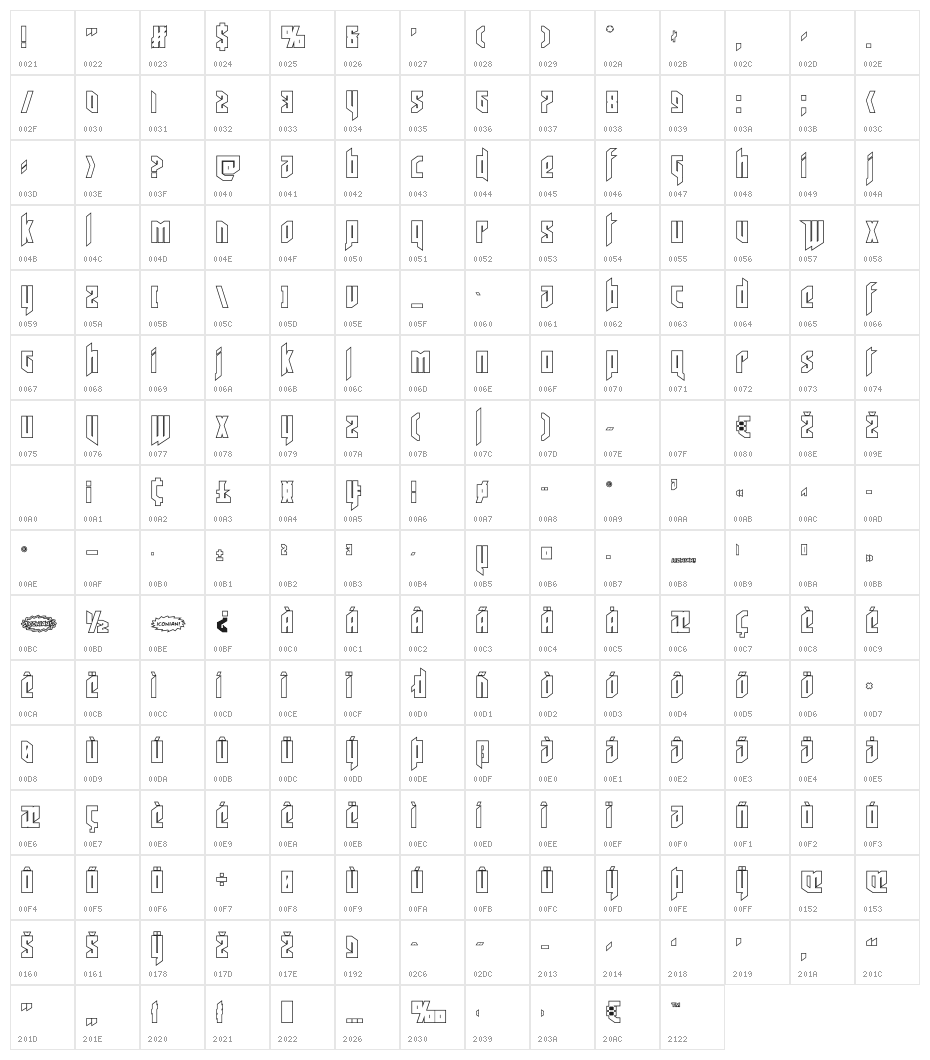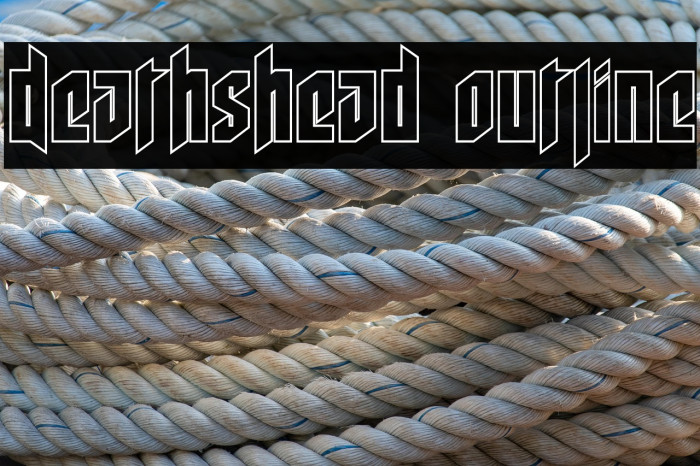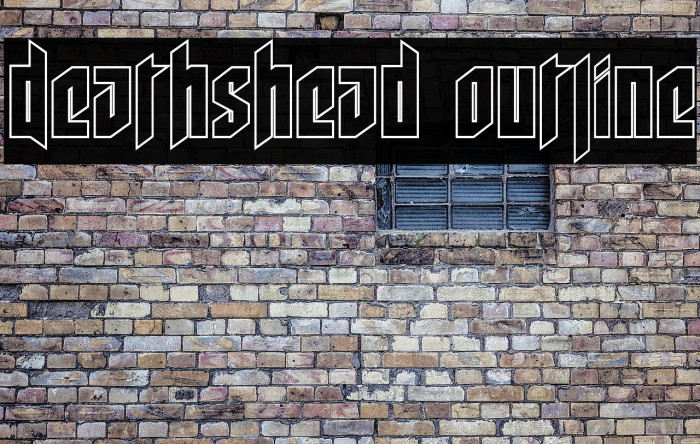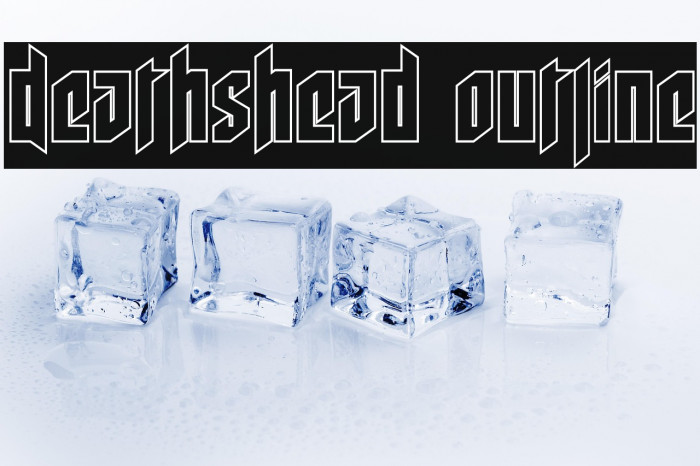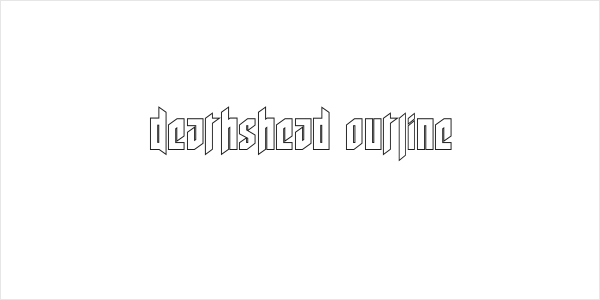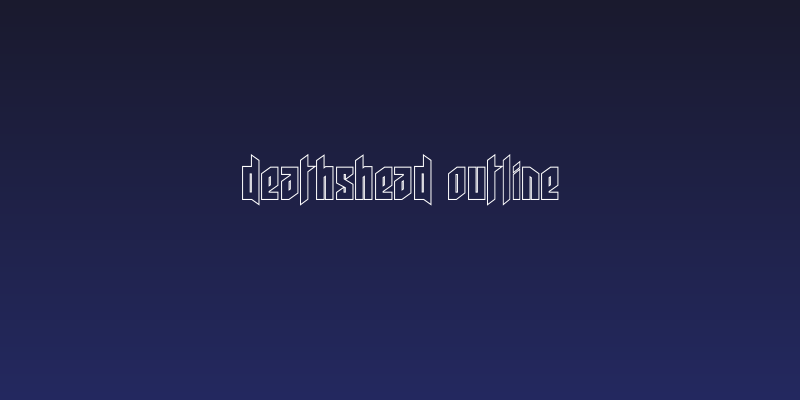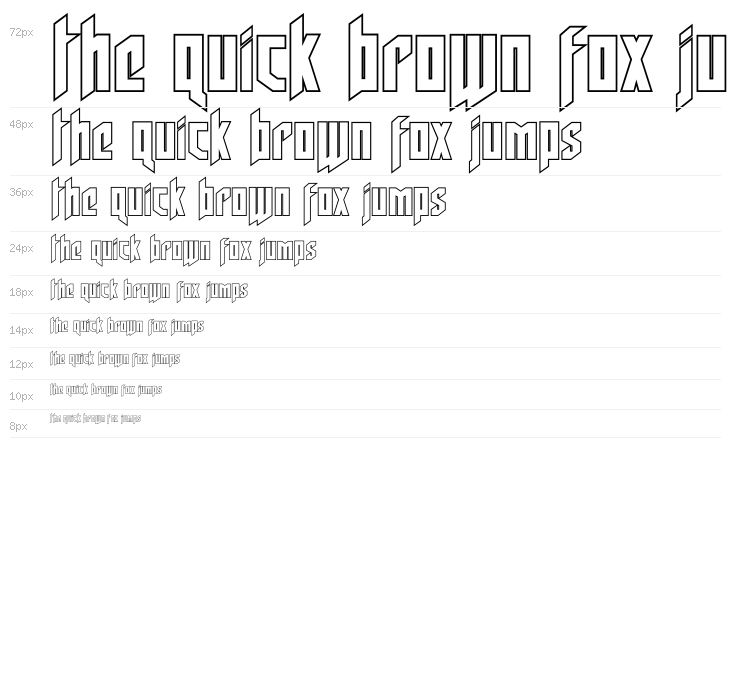
Deathshead Outline Font
Deathshead Outline Description
This font features a bold, angular design with a distinct outline style that gives it a striking, edgy appearance. The characters are sharply defined with geometric precision, creating a sense of modernity and strength. The uppercase and lowercase letters maintain a consistent height, enhancing its uniformity. The numbers and special characters follow the same design principles, ensuring a cohesive look across all elements. Its unique style makes it stand out, suitable for projects that require a bold statement.
| Proposed Projects | Ideal for posters, album covers, video game graphics, and branding that requires a strong, distinctive look. |